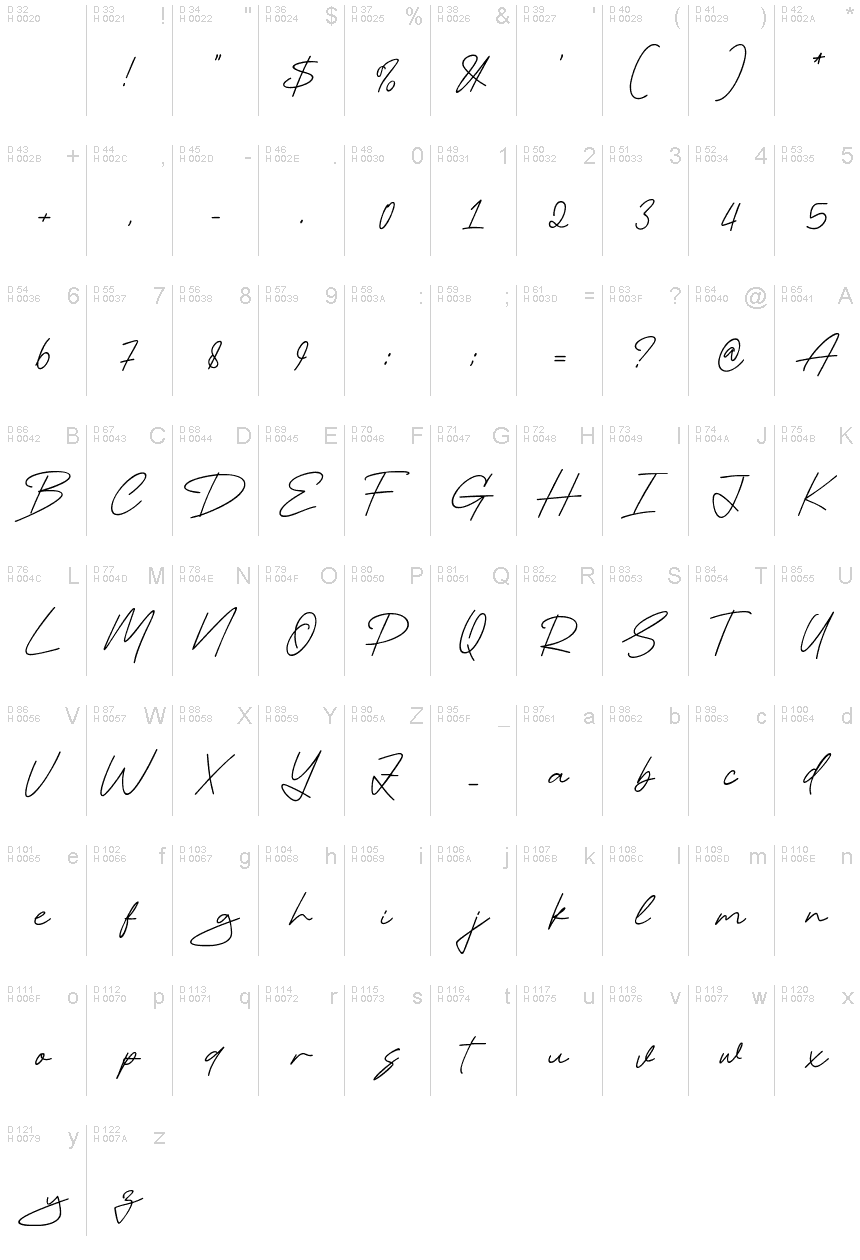
Delight Sunset
Delight Sunset, designed by Khurasan, is a stunning extra-light handwritten signature font that exudes elegance and sophistication. Its delicate strokes flow seamlessly, making it perfect for wedding invitations, greeting cards, and other formal documents. This font's unique style adds a touch of personalization to any project, making it perfect for branding and logo design. Delight Sunset is versatile enough to use in both digital and print media, from websites to packaging design. With its effortless beauty and timeless appeal, Delight Sunset is the perfect choice for any project that needs a touch of refined charm.